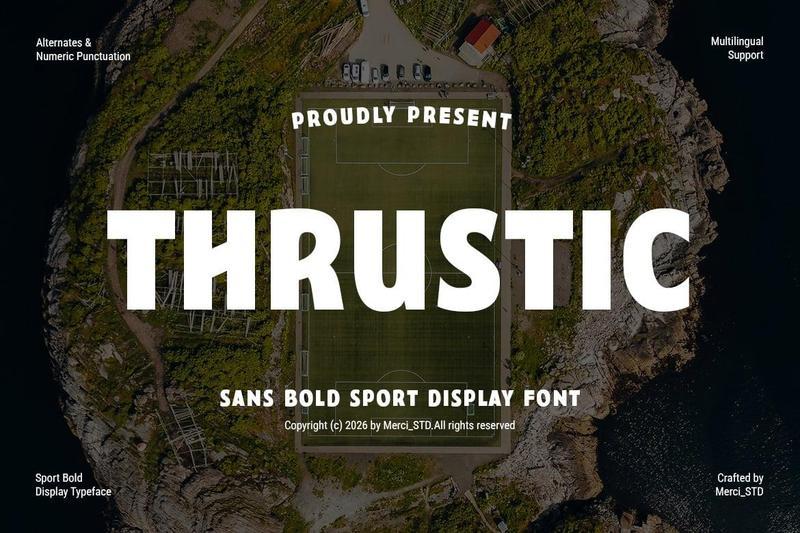
Thrustic – Sans Bold Sport Display Font RYR2ZBG
Thrustic Sans Bold Sport Display Font RYR2ZBG
Thrustic is a bold sports display font designed for maximum impact and visibility. Featuring strong letterforms and athletic energy, it is ideal for sports branding, team identities, esports graphics, event posters, fitness campaigns, and action-driven visual projects. Its powerful appearance ensures attention-grabbing headlines and confident branding applications
* Uppercase Letters
* Numbers & Punctuation
* Ligature & Alternate Character
* Unique Hand-Drawn Style